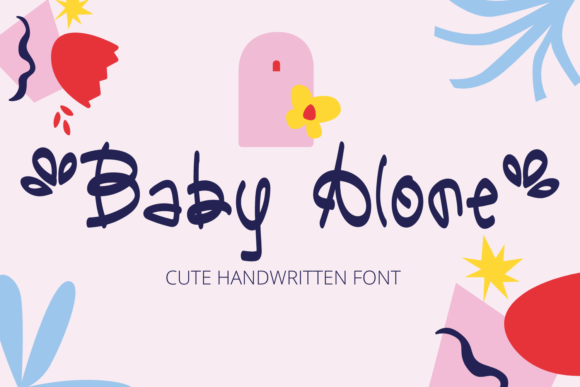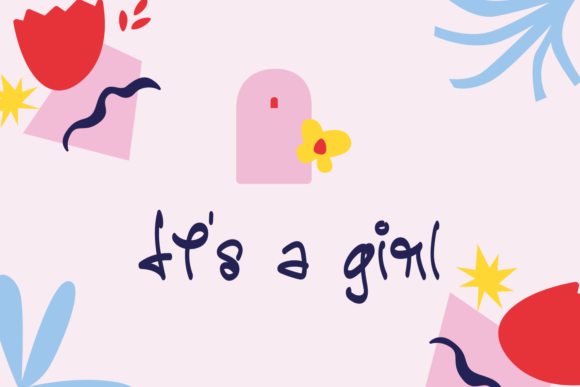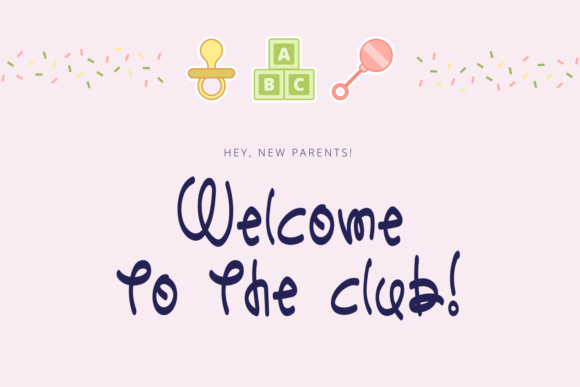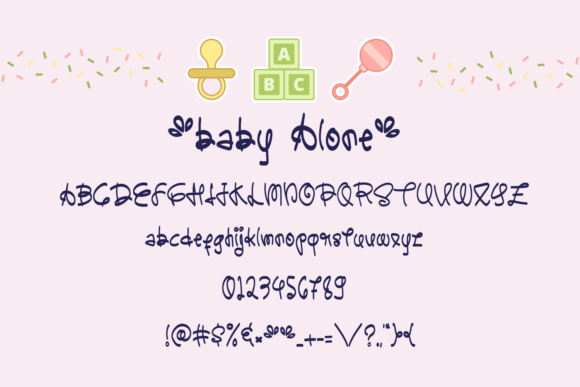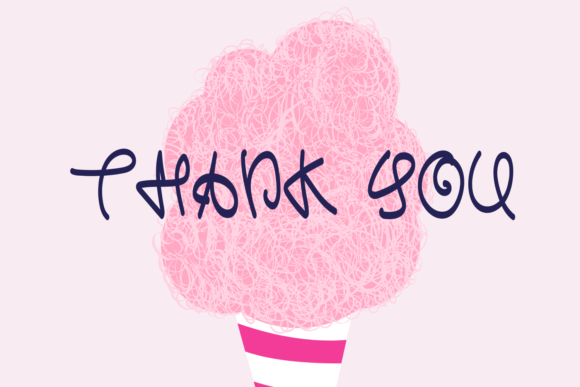
About Baby Alone Font
Baby Alone is a cute and whimsical handwritten font. It embodies playfulness and authenticity and is the perfect choice for any children activity or school project.